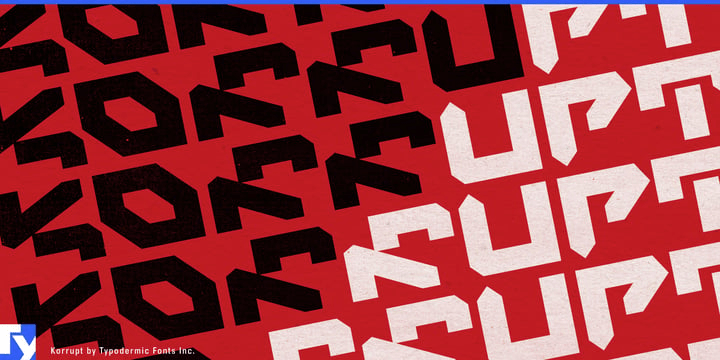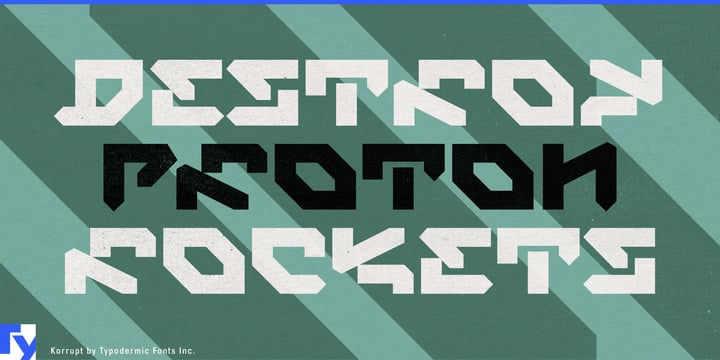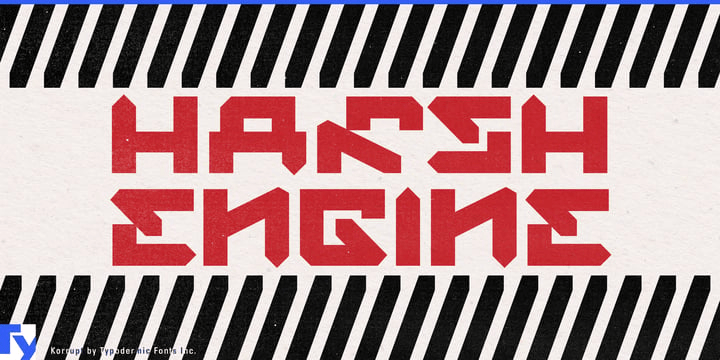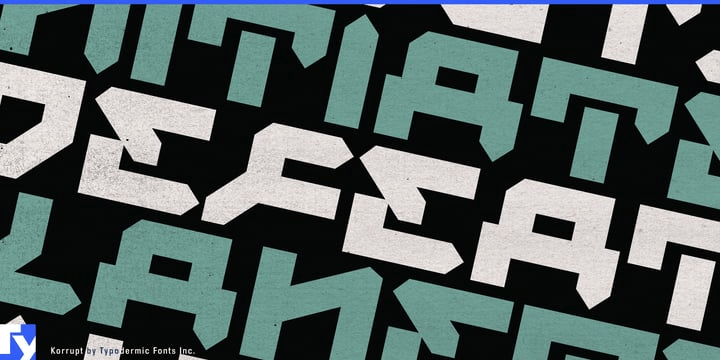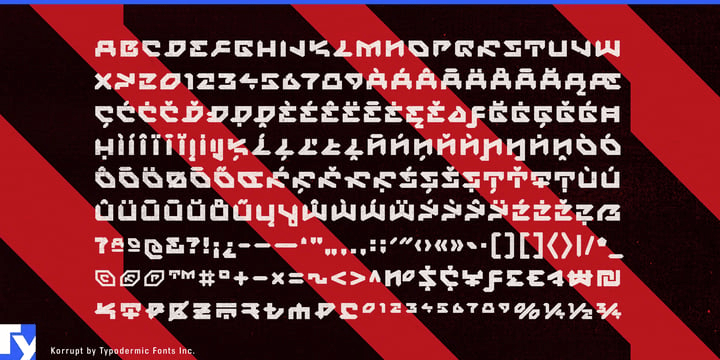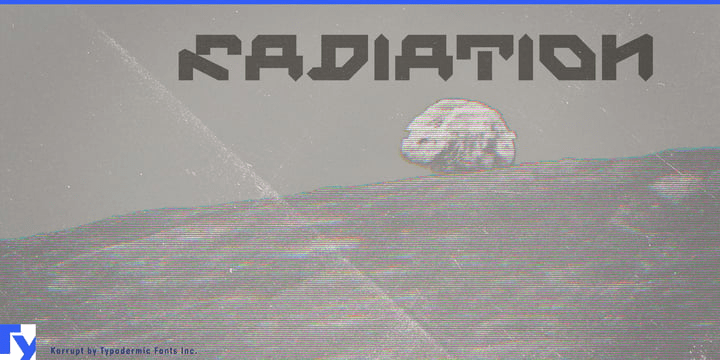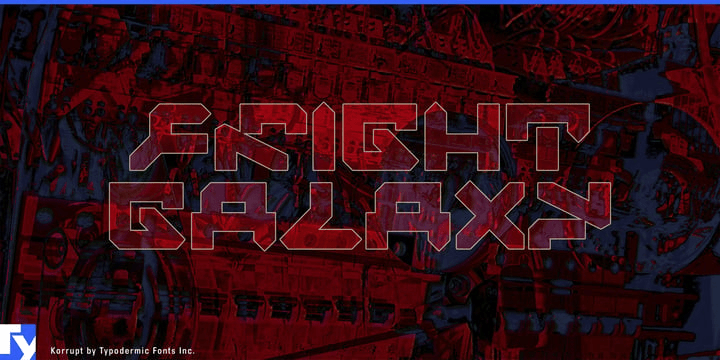
Korrupt
Most futuristic typography depicts technology working as intended. Korrupt is for the point where the system has begun to misbehave. Its letters remain recognizable, but strokes slip out of alignment, angles contradict one another and segmented forms seem to have been rebuilt according to rules that are almost, but not quite, compatible.
The design sits several generations away from the technology it appears to reference. Segmented electronic numerals began as adaptations to hardware limitations; later typefaces extrapolated complete alphabets from that visual logic even when no actual display demanded those shapes. Korrupt begins another step downstream, using those already-mediated digital alphabets as source material and destabilizing them again.
It is a form of recursive stylization. A technological constraint becomes a visual convention; the convention is imitated, then the imitation becomes material for another design. Korrupt inherits the gaps, chopped diagonals and segmented endings of electronic-display typography, but by this stage they are constraint fossils: traces of hardware limitations that no longer have any functional reason to exist.
Representation drift lets those fossils mutate. A broken segment can continue to read as “digital” long after it stops resembling anything that could be built into a real display. Korrupt exploits that distance, shifting sections sideways, changing terminal angles and making familiar structures subtly implausible while preserving enough of the inherited code to remain legible.
That makes Korrupt particularly useful for fictional systems that are no longer functioning normally. Games, title sequences and speculative screen worlds can use it for compromised networks, hostile machine intelligence, malfunctioning facilities, forbidden technologies and corrupted factions. A conventional technical sans can establish the functioning system; Korrupt can appear when something breaches it.
Hard electronic music and audiovisual performance offer another natural setting. Industrial electronics, hard techno, noise and experimental events can use Korrupt for artist names, stage identities, release titles and projected typography. Because the disruption is structural rather than a layer of pixel noise or glitch texture, the letterforms can be pushed further through animation, distortion and image processing without starting from chaos.
Digital-art exhibitions and deconstructed apparel can draw on the same mediated quality. Exhibition titles, installation names, back prints and garment graphics can treat the alphabet as assembled material; something recognizably technological whose original technological referent has almost disappeared.
Korrupt is a single-weight, all-caps display face, so its role is deliberately concentrated. Its value lies in interruption: the title that looks compromised, the system label that no longer obeys the system, or the electronic form that has drifted far enough from its origin that the fossil has started evolving on its own.